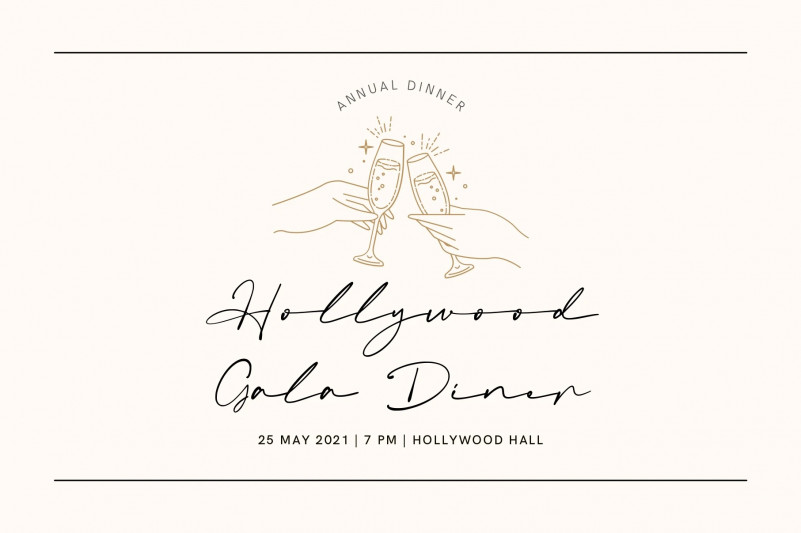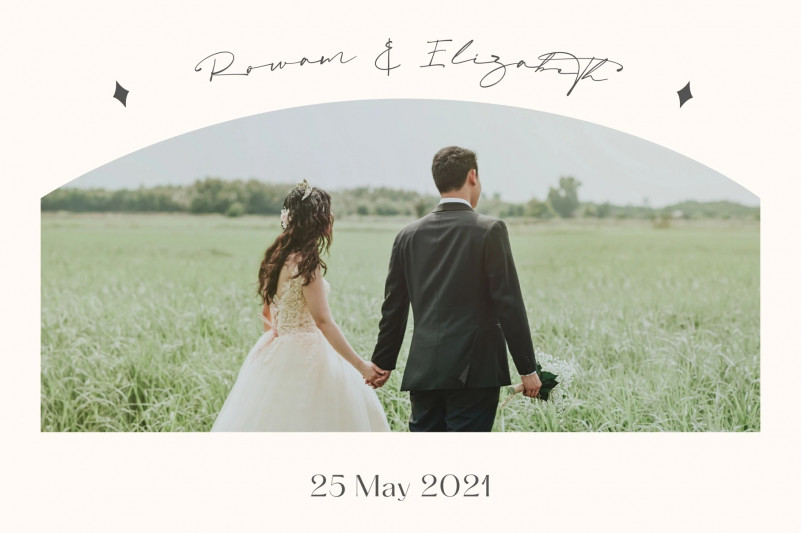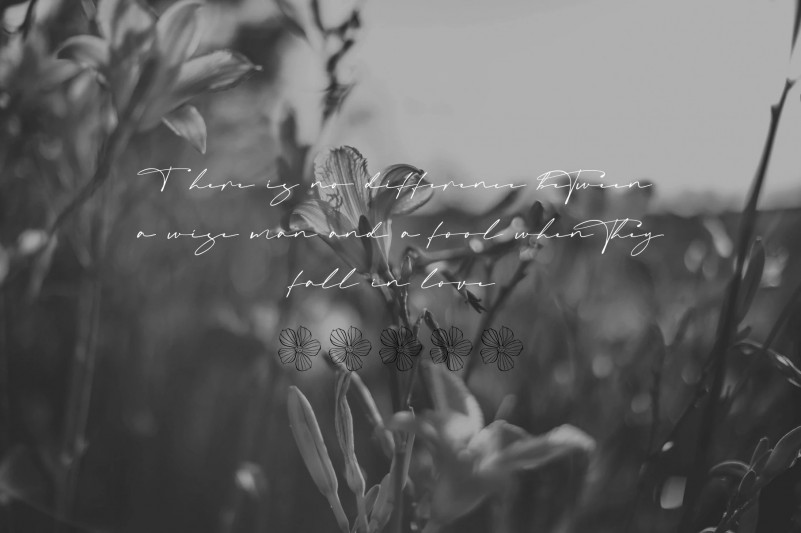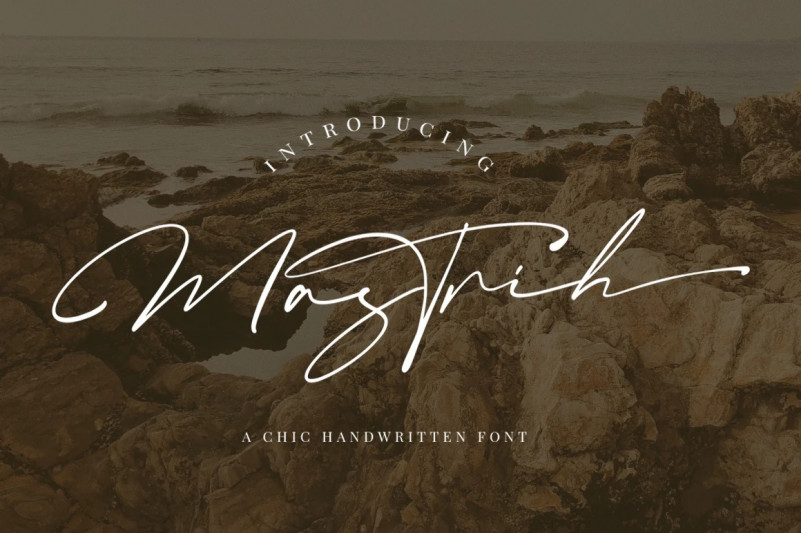
Mastrih Handwritten Font
This font is new elegant handwritten with a quick stroke pen effect. Inspired by a sweet love contemporary handwriting fonts with ligatures and alternative styles ready to add unique look and bloom on your design